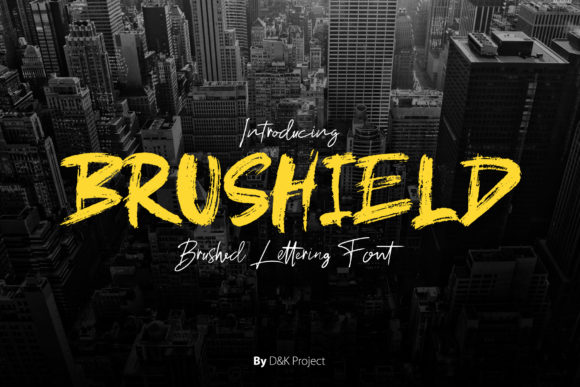
Step into the world of Brushfield Font, a captivating script font that exudes elegance and charm. Crafted with precision by DK Project, Brushfield is not just a font; it's an artistic expression that breathes life into your designs.
With its graceful curves and playful strokes, Brushfield Font possesses a personality that shines through every letter. Its unique style adds a touch of whimsy and sophistication to any project, whether it's a wedding invitation, a logo, a social media post, or even a handwritten note.
Unleash your creativity and let Brushfield Font transform your words into works of art. Its versatility knows no bounds, allowing you to express yourself in countless ways. From enchanting invitations to eye-catching branding, Brushfield Font is your perfect companion for creating a lasting impression.
Embrace the beauty of Brushfield Font and embark on a typographic journey that will leave you spellbound. Experience the joy of turning ordinary text into extraordinary expressions, adding a touch of magic to every project you undertake.